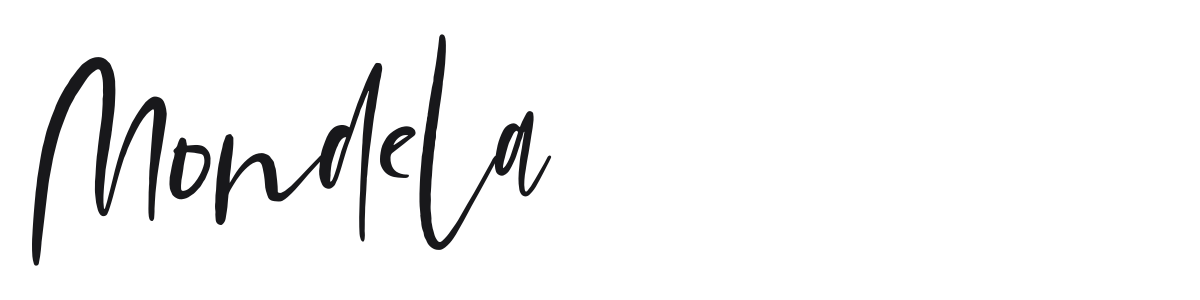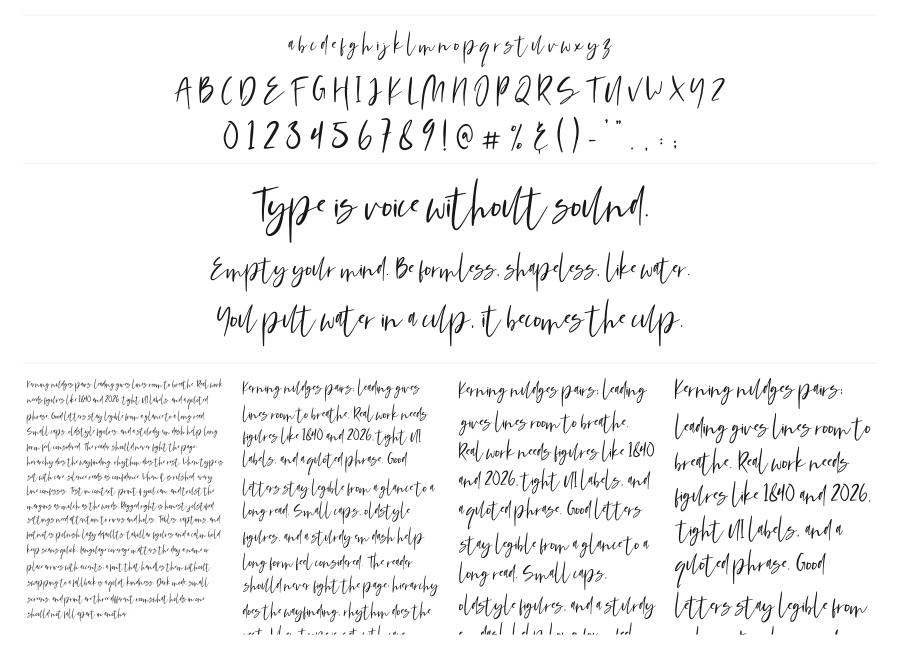
Mondela
Mondela is a casual handwritten script with flowing connected strokes and a light, airy feel. The tall ascenders and sweeping descenders give it a natural pen-written rhythm that reads as effortlessly polished. It sits comfortably in wedding invitations, lifestyle branding, and editorial headlines.